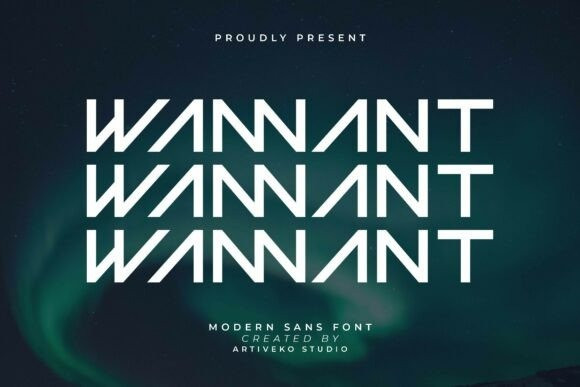
Wannant Font
Wannant Font is a technology-inspired geometric sans serif font by Iwan Alwan, featuring precise, futuristic letterforms that evoke innovation and modernity. Ideal for tech branding, UI/UX design, and digital interfaces, Wannant combines clean geometry with a sleek, forward-thinking style. With multilingual support, ligatures, and alternates, Wannant offers versatility while maintaining a cutting-edge, tech-focused aesthetic, making it perfect for projects that seek a professional and advanced look.
This fonts are great for product logo,wedding card logo, clothing brand logo, Vintage design and much more.